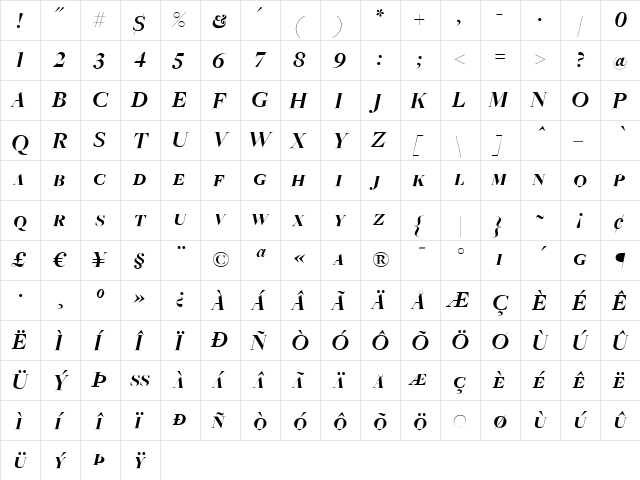
FreightBigBoldItalicSC Regular
Design Context for FreightBigBoldItalicSC Typeface
FreightBigBoldItalicSC is a composed and adaptable typeface that performs quietly and consistently across a wide range of design contexts. Its italic angle brings a sense of urgency and motion to the letterforms. Its bold stroke weight gives it real presence on the page.
Pro Tip: Use FreightBigBoldItalicSC for emphasis, pull quotes, and subheadings where its slanted energy can add rhythm to the layout.